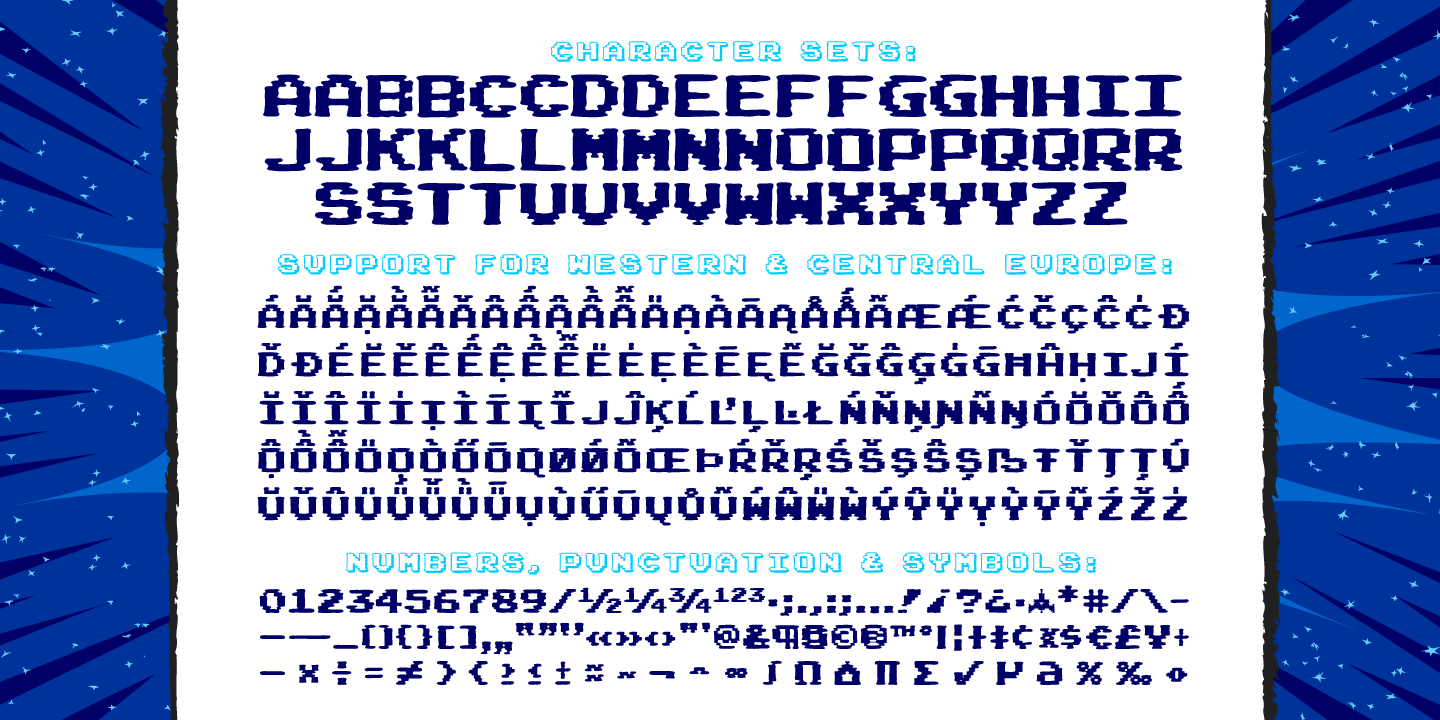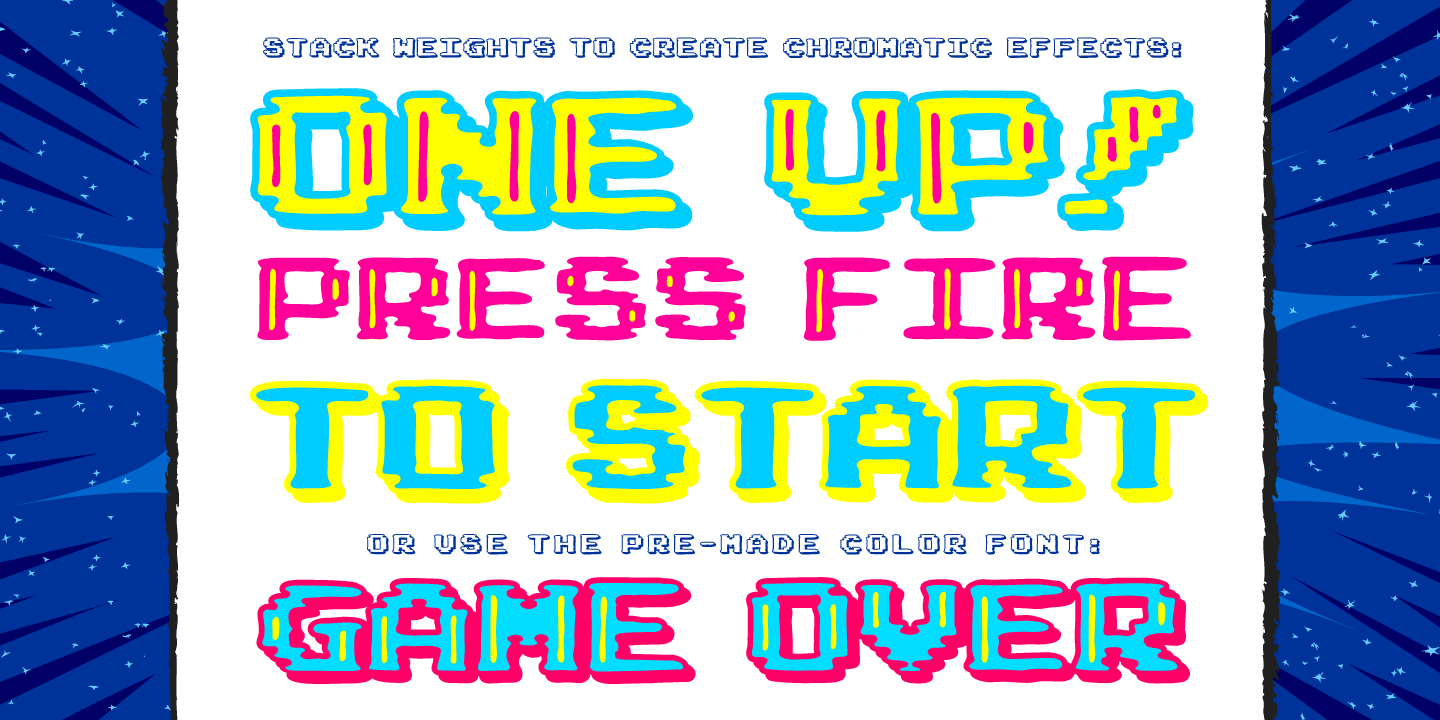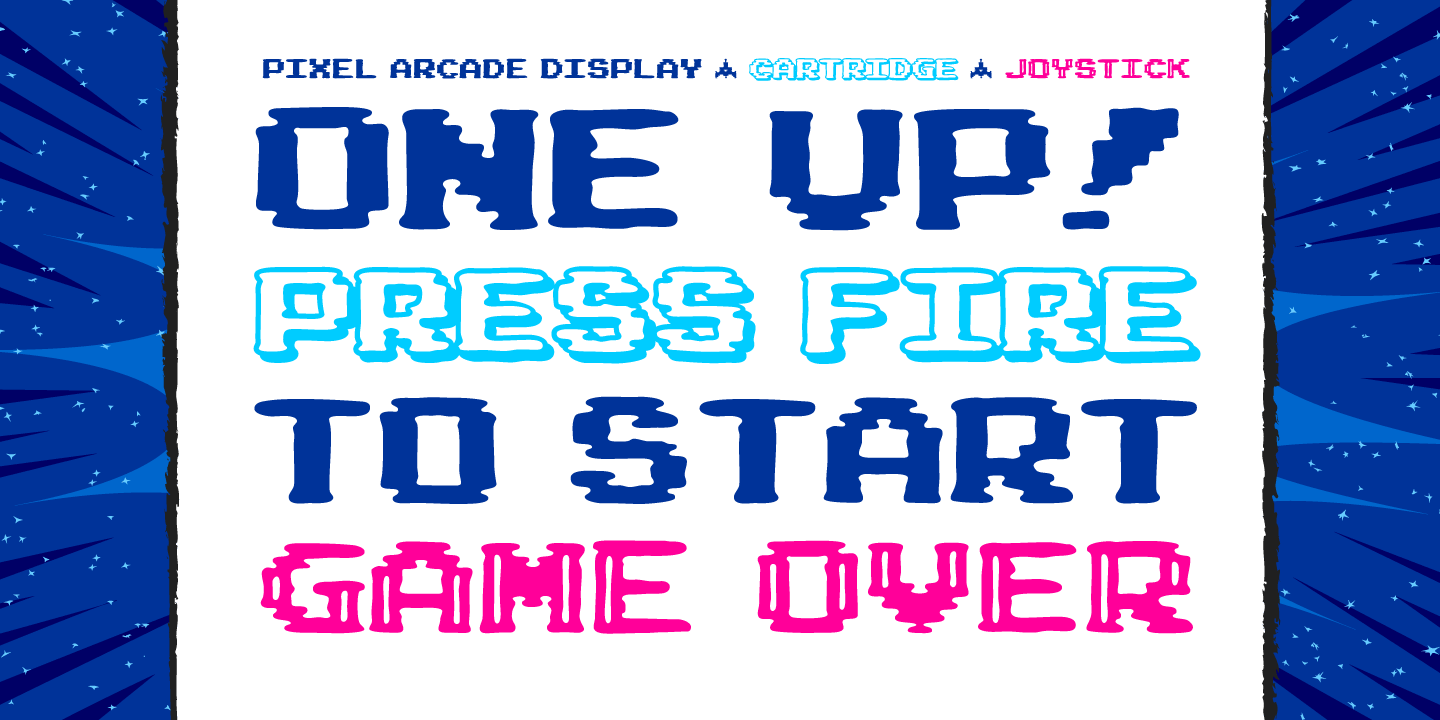
Pixel Arcade
Font Family by Comicraft Fonts
GAME OVER, MAN, GAME OVER! Time to grab your joystick, turn to channel 3 and level up, Player One, or you'll never beat the high score on your new game cartridge. Or bring a stack of quarters and a couple of friends to the mall, and we'll play some Rick Astley and Kajagoogoo over the PA while you scope out hotties near the food court.
Either way, eight bit lettering has never looked more eighties than it does in our PIXELARCADE font!